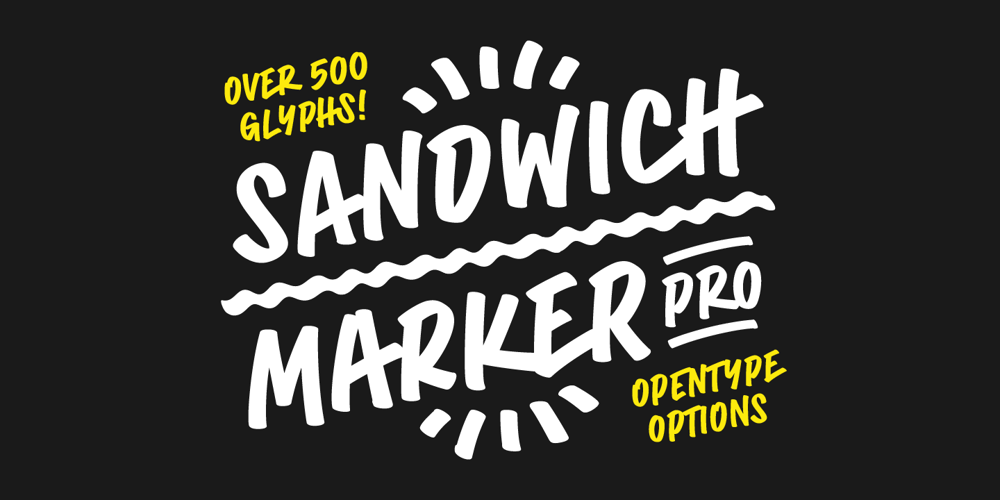
Sandwich Marker Pro
Sandwich Marker Pro font
Sandwich Marker Pro Font Family was designed by Mathias Zimmermann and published by pictomato. Sandwich Marker Pro contains 1 styles and family package options. Sandwich Marker Pro is a handwritten uppercase font with more than 500 glyphs. Each glyph has at least three stylistic alternate sets, designed for an authentic expression of handwritten text without boring, recurring glyphs. Play easily with stylistic sets in any Open Type savvy program by clicking the options or selecting specific glyphs manually from the glyph palette. Use bonus characters to add special personality to your designs.